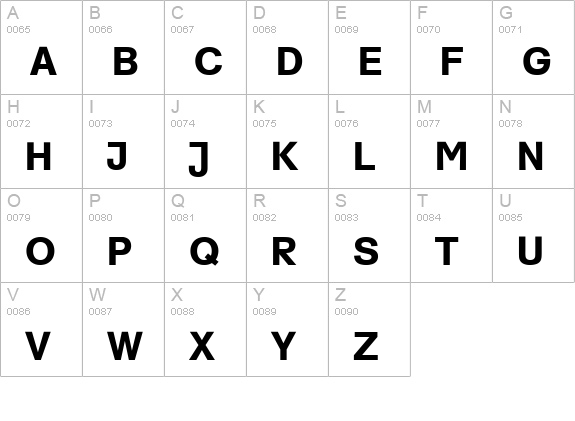
Akzidenz-Grotesk (R) Schulbuch Medium Font Details
Akzidenz-Grotesk (R) Schulbuch Medium is a balanced, medium-weight variant in the Akzidenz typeface family \xE2\x80\x94 well suited to sub-headlines, navigation, and balanced editorial work.
Akzidenz-Grotesk (R) Schulbuch Medium font is a timeless and versatile typeface that exudes a classic and modern aesthetic. Its clean lines, balanced proportions, and simple yet elegant design make it perfect for a wide range of design projects. Whether used for body text or headlines, this font delivers excellent readability and visual appeal. What sets Akzidenz-Grotesk (R) Schulbuch Medium font apart is its harmonious blend of tradition and contemporary style, making it suitable for both print and digital applications. Its medium weight strikes the perfect balance between boldness and subtlety, making it a versatile choice for various design needs. The best part is that Akzidenz-Grotesk (R) Schulbuch Medium font is freely available for download at FontsMarket.com. This means that you can easily access and use this high-quality typeface in your projects without any hassle. Whether you are a designer, student, or enthusiast, having access to this font for free opens up endless possibilities for creative expression.